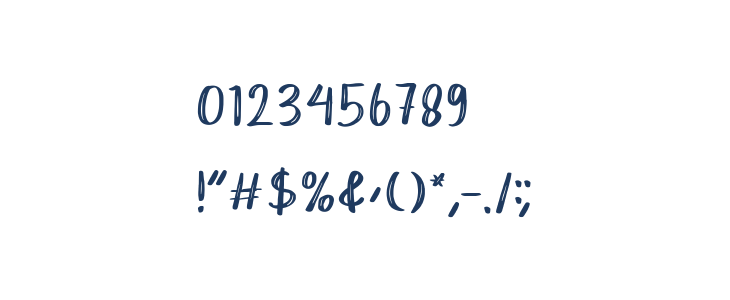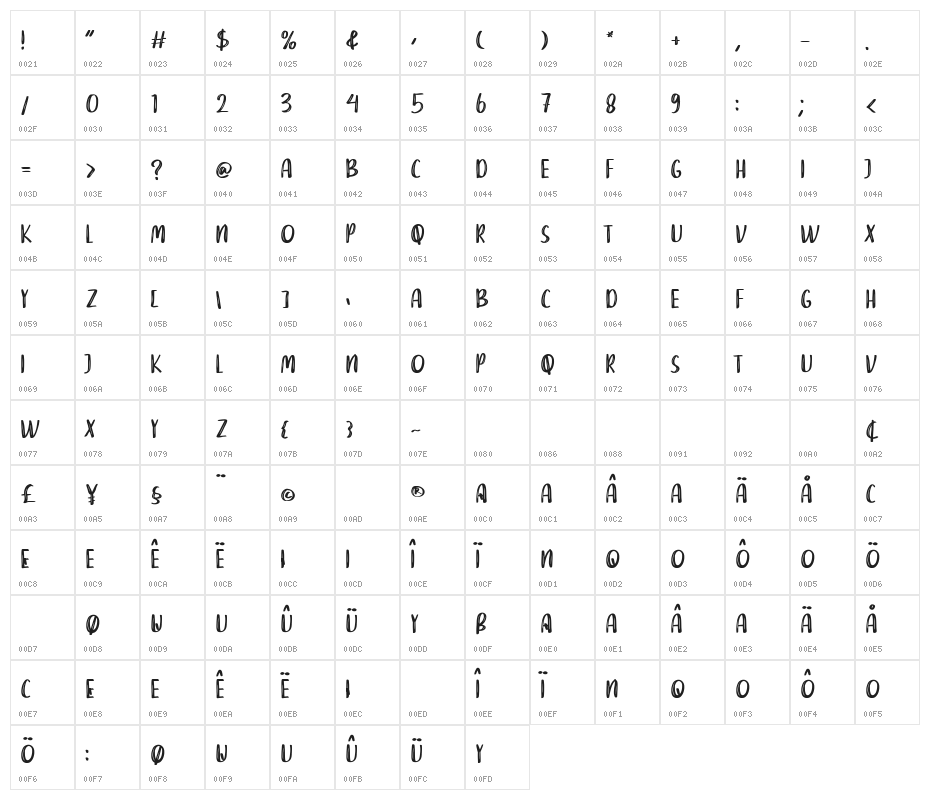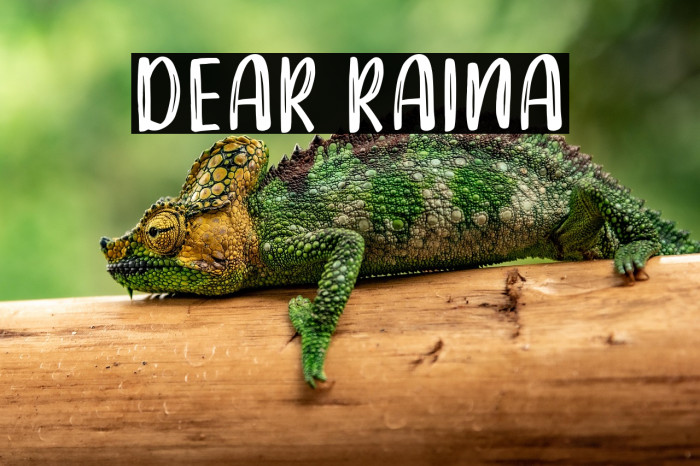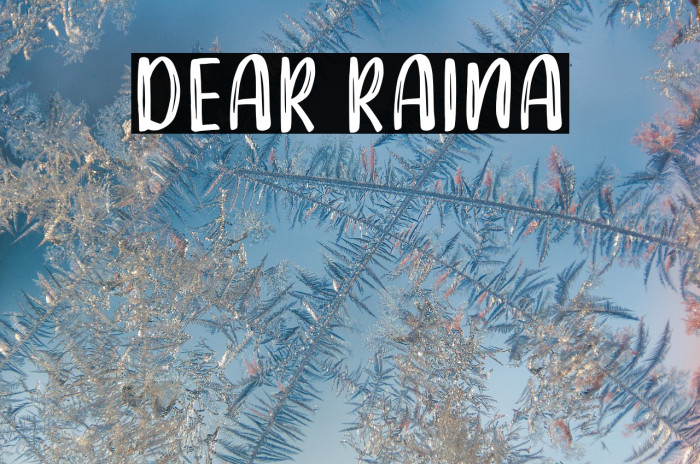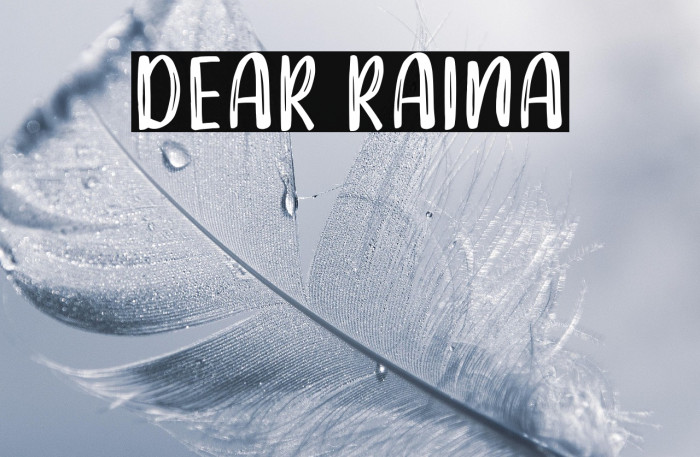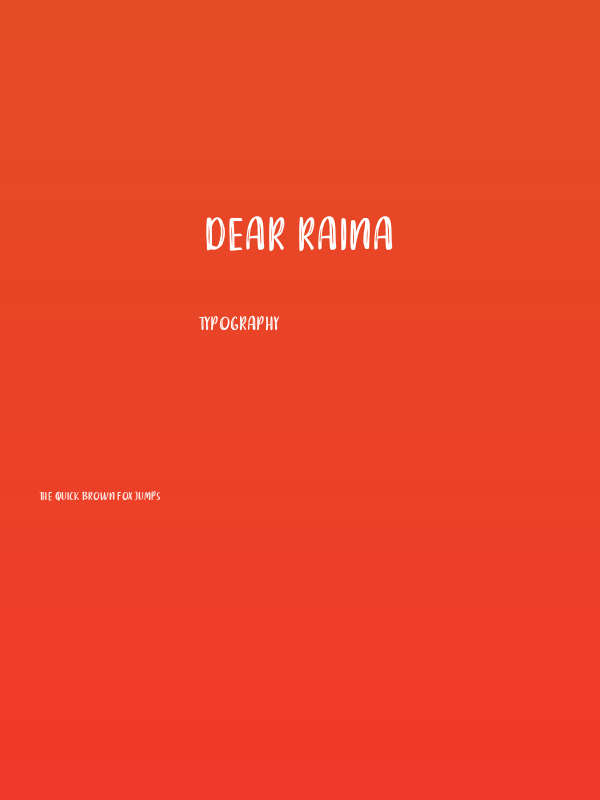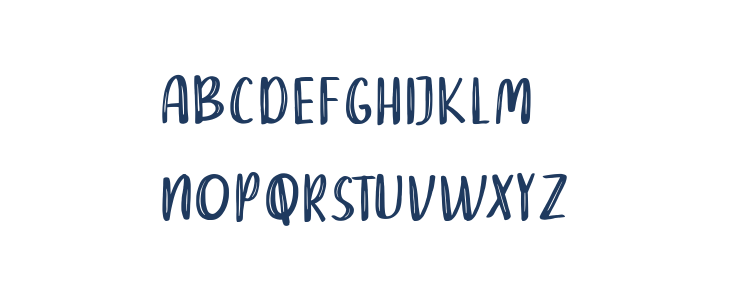
DEAR RAINA Font
DEAR RAINA Description
This font features a playful and energetic handwritten style with bold, rounded strokes. The characters are slightly slanted, giving a dynamic and informal appearance. The uppercase and lowercase letters maintain a consistent style, with a slight variation in size and shape that adds to the casual feel. Numbers and special characters are designed to match the overall aesthetic, ensuring a cohesive look across all text elements. The font's boldness and unique character shapes make it stand out, ideal for projects that require a touch of personality and flair.
| Overall Style | Playful, Energetic |
| Proposed Projects | Great for greeting cards, playful branding, children's books, and social media graphics. |